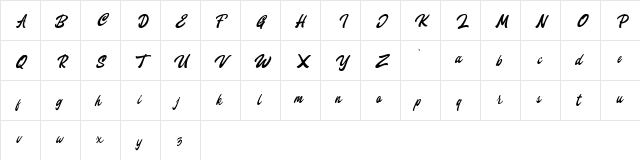
Callerious Regular
| Foundry | Moovied Co. |
| Designer | Moovied Co. |
Design Context for Callerious Typeface
Callerious is a composed and adaptable typeface that performs quietly and consistently across a wide range of design contexts.